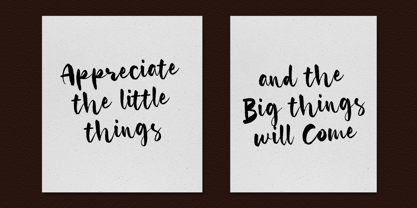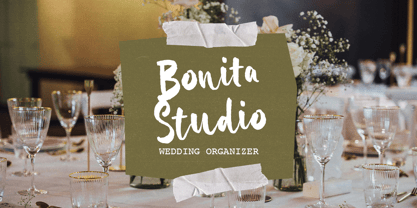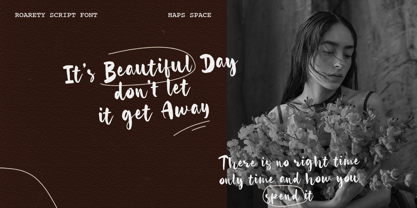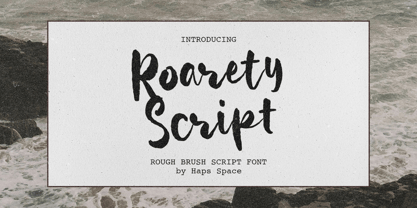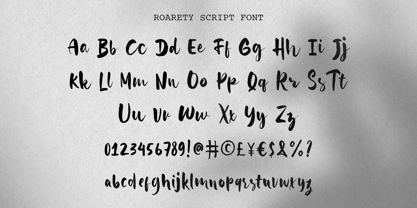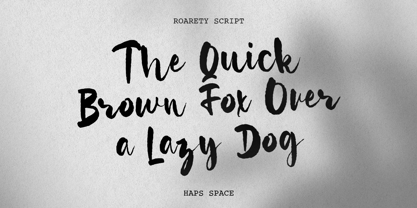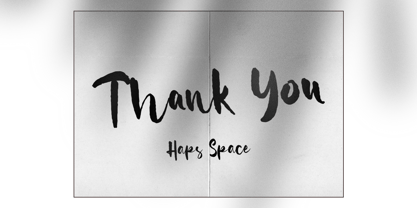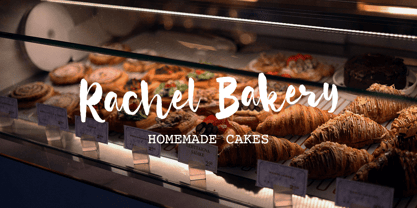
Roarety Rough Script
por Haps Space
La familia tipográfica Roarety Rough Script fue diseñada por Haris Purnama Putra, Egi Ahmad Mufid y publicada por Haps Space. Roarety Rough Script contiene 1 estilos.
Roarety Rough Script is a bold and expressive brush script font with a textured, hand-drawn aesthetic. Its rough edges and dynamic strokes bring a sense of energy and authenticity, making it perfect for designs that require a raw, handcrafted touch.